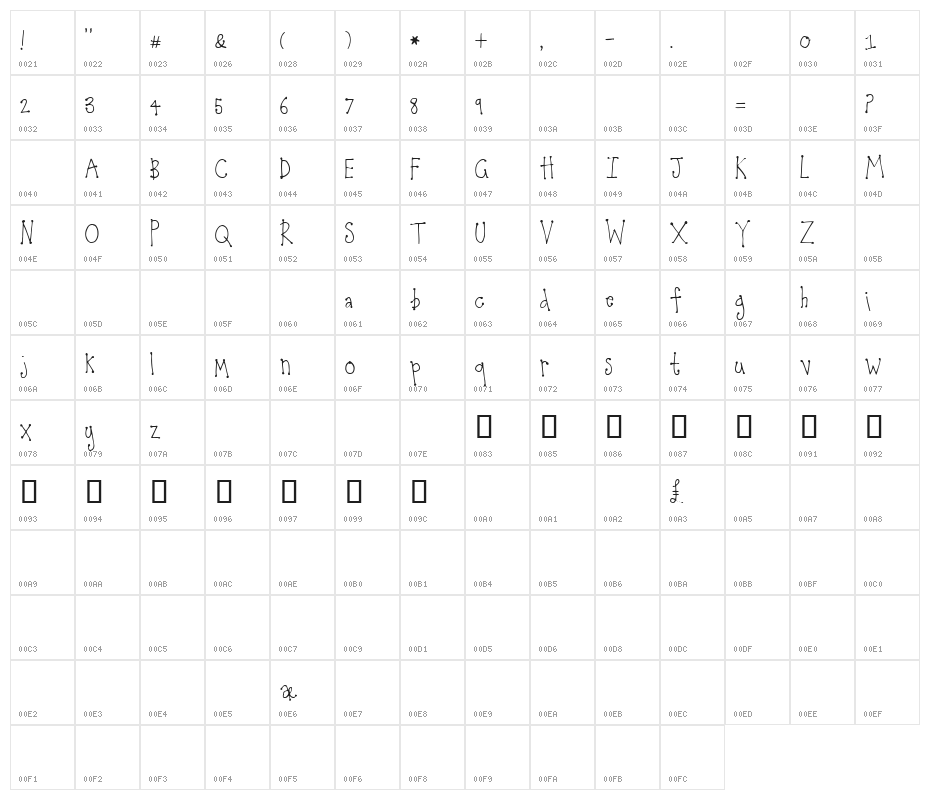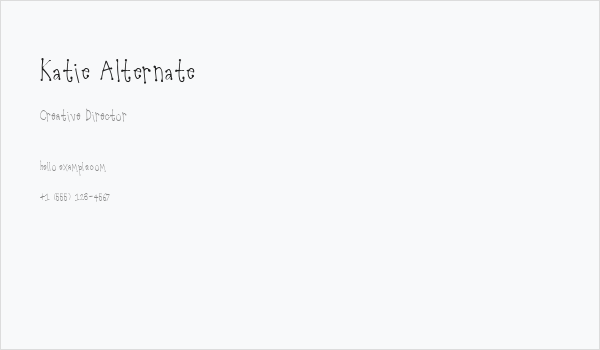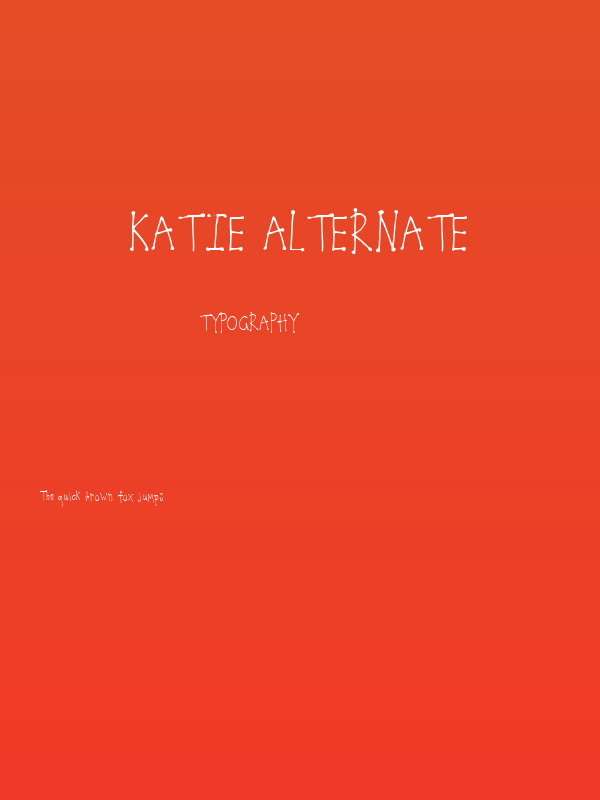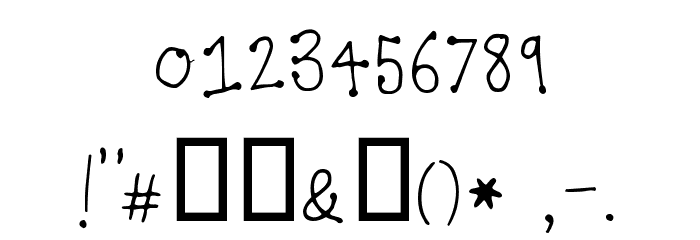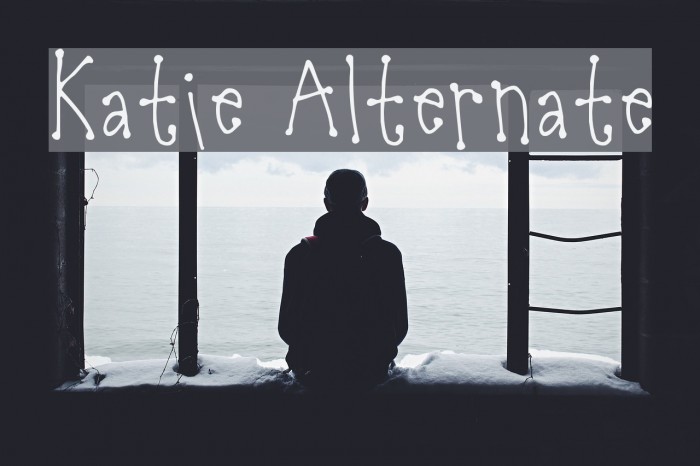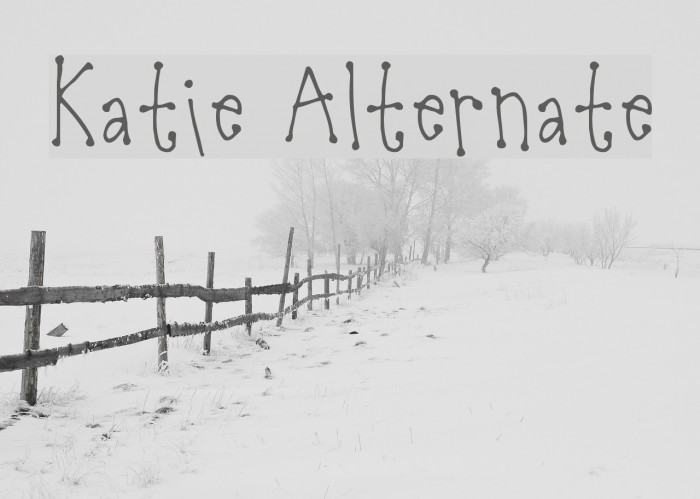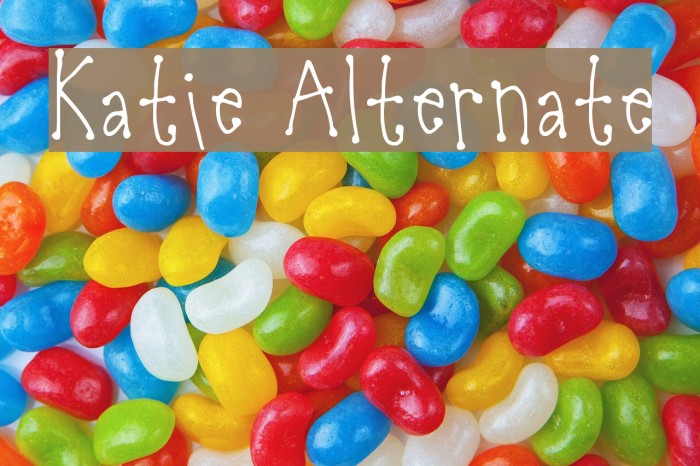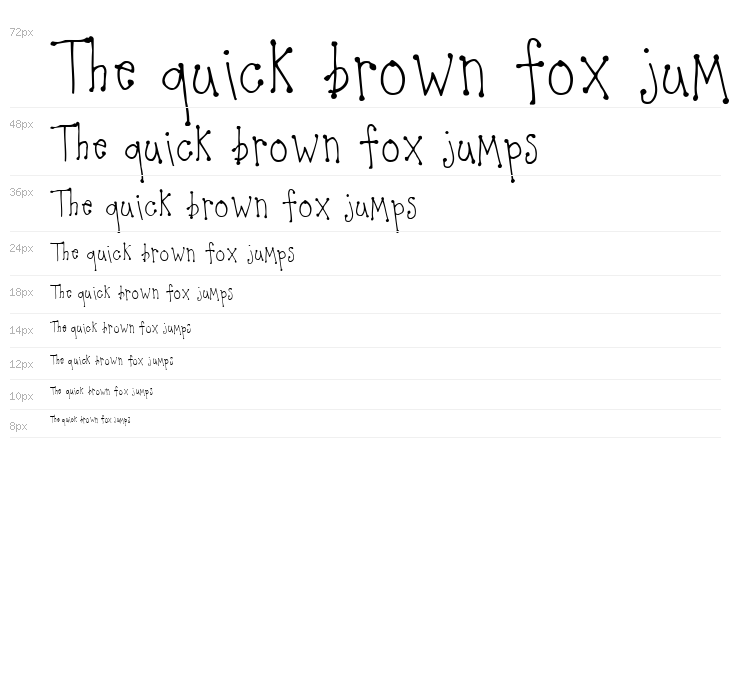
Katie Alternate Font
Katie Alternate Description
This font features a playful and whimsical design, characterized by its irregular and hand-drawn appearance. The letters have a unique, slightly uneven stroke that gives them a casual and informal look. The uppercase and lowercase letters maintain a consistent style, with rounded edges and a slightly tilted orientation, adding to the font's charm. The numbers and special characters follow the same playful aesthetic, making the font suitable for creative and fun projects. Its distinct style makes it stand out, while still being legible and versatile.
| Proposed Projects | Ideal for children's books, greeting cards, playful branding, and creative posters. |